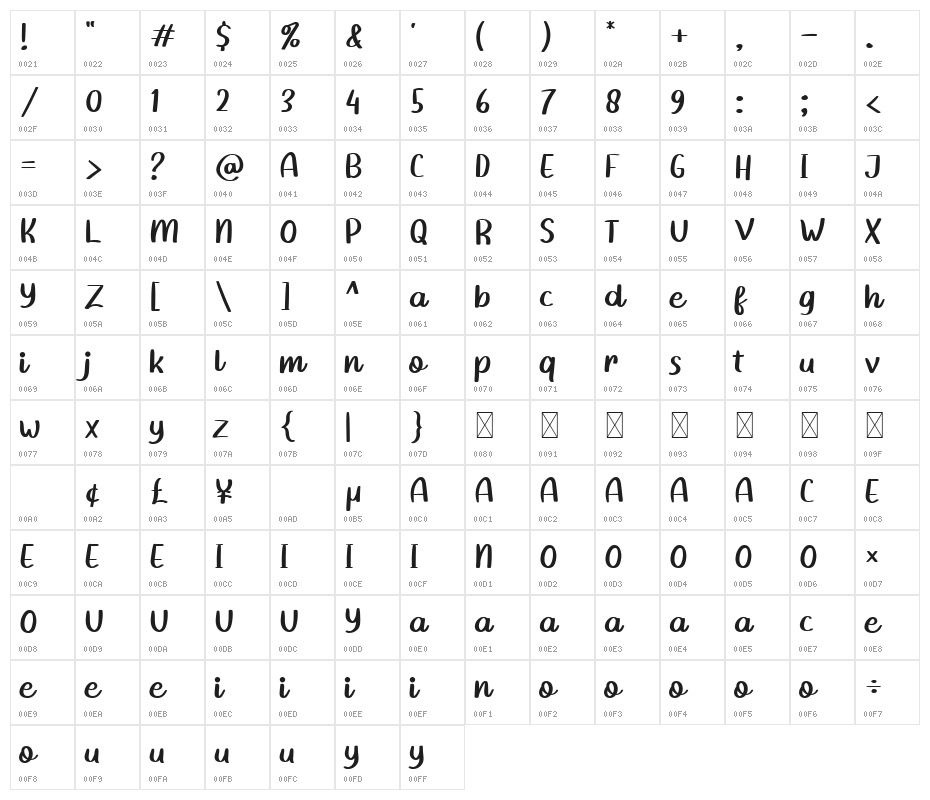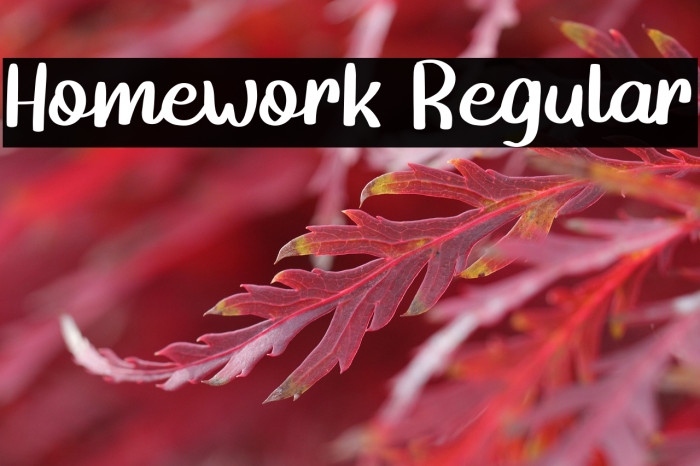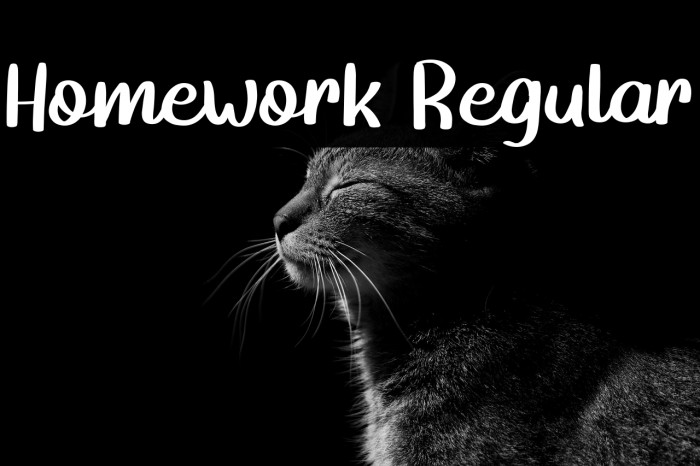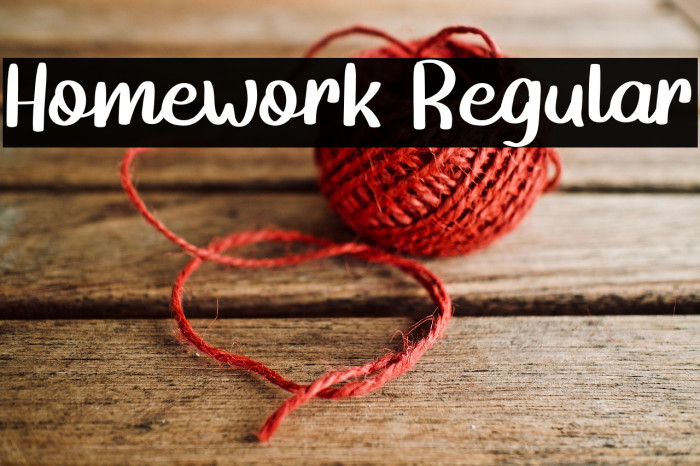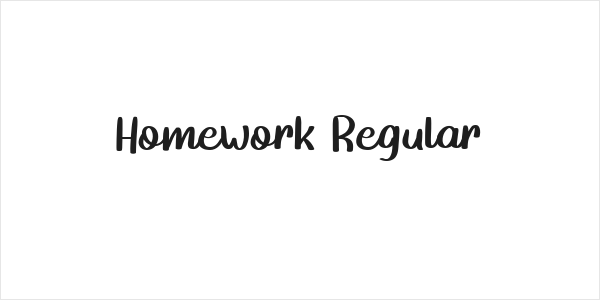
Homework Regular Font
Homework Regular Description
This font features a playful and casual handwritten style, characterized by its smooth, flowing curves and slightly irregular letterforms. The uppercase letters are bold and rounded, while the lowercase letters maintain a consistent, friendly appearance. The numbers and special characters follow the same playful aesthetic, making the font versatile for various creative projects. The overall look is approachable and informal, suitable for designs that aim to convey warmth and friendliness.
| Overall Style | Casual, Playful |
| Use Case | Headlines, Logos, Invitations |
| Proposed Projects | Ideal for greeting cards, invitations, children's books, and playful branding projects. |